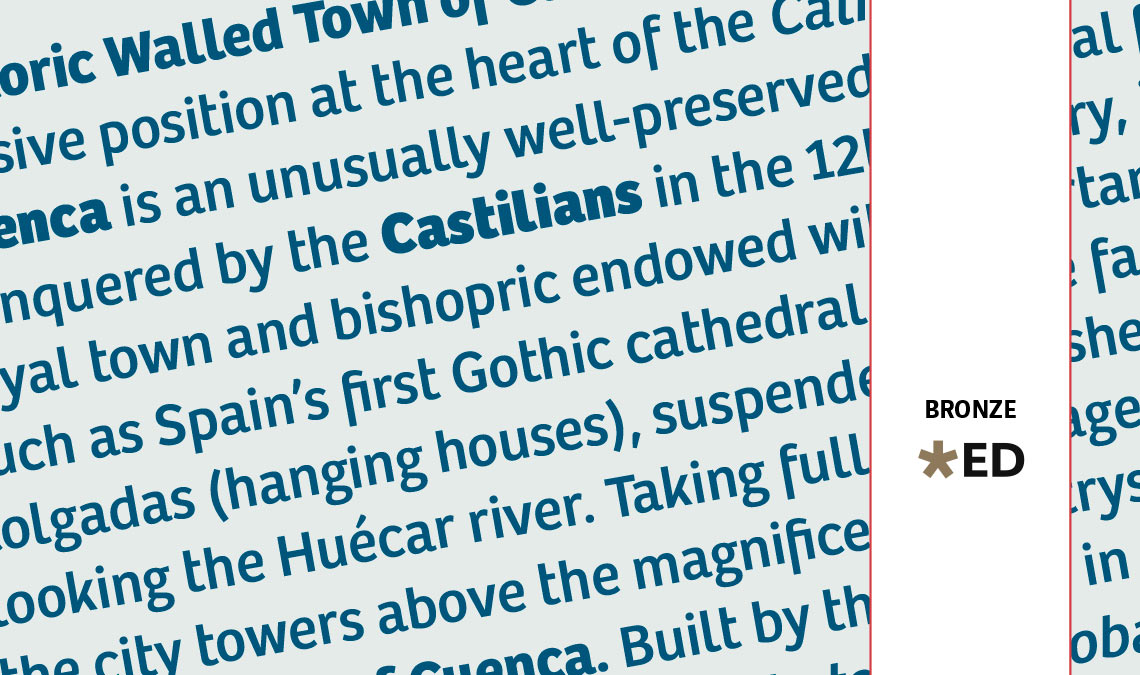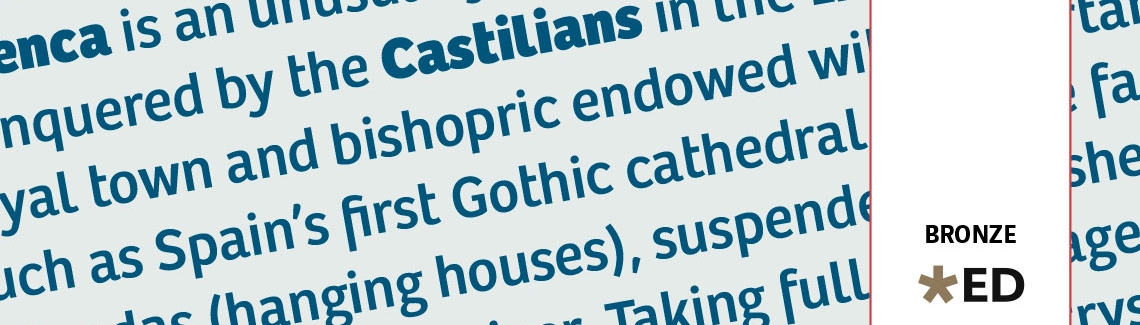
Bree wins at ED-Awards 2008
Bree was awarded a bronze prize in the Original Typeface category.
Bree, the popular upright italic designed by Veronika Burian & José Scaglione in 2008 was awarded a bronze prize in the Original Typeface category of the ED-Awards competition. Bree, a typeface based on TypeTogether’s own logotype, is a sleek sans serif that delivers a polished and modern look and feel for branding or headline usage. It was originally released in five weights, ranging from thin to extrabold, and then expanded with matching obliques.